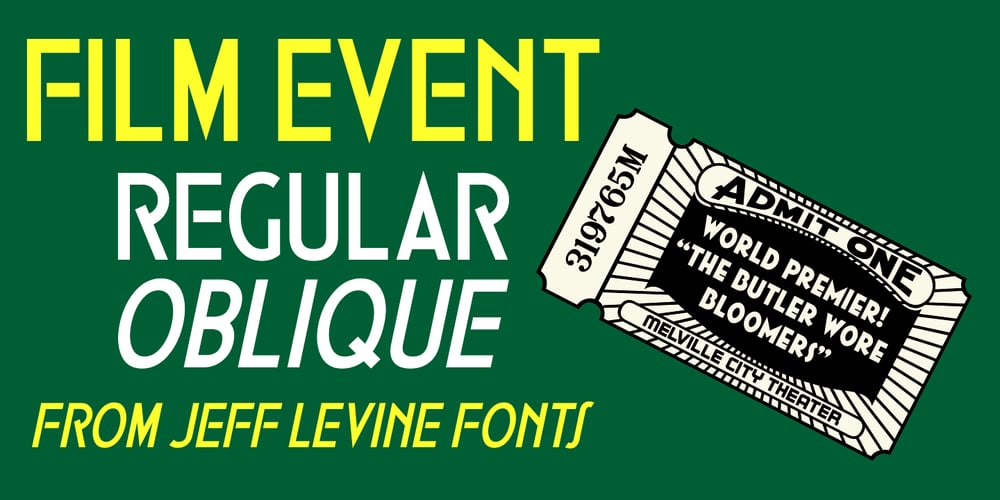
Film Event JNL Font Family was designed by Jeff Levine and published by Jeff Levine. Film Event JNL contains 2 styles and family package options. The August 11, 1929 issue of “The Film Daily” carried an ad for Tiffany-Stahl Productions’ presentation of a special film release featuring a wrestling match between “Strangler” Lewis and Gus Sonnenburg.The hand lettering for the ad was rendered in an Art Deco sans serif style, and is now available digitally as Film Event JNL in both regular and oblique versions.